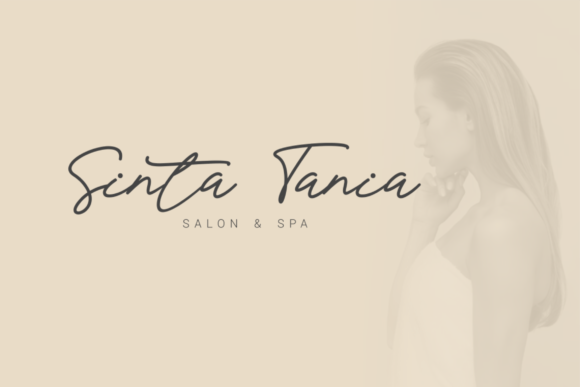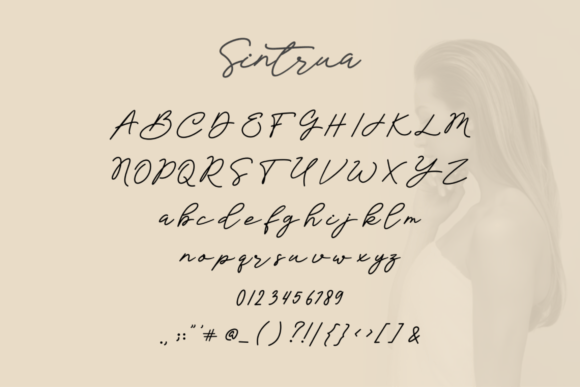
Introduction to Sintrua Font
Sintrua is a monoline, signature font with a stylish handwritten feel full of curves, swashes, lines, and more.
The balance in every word is truly extraordinary .
Key Features of Sintrua Font